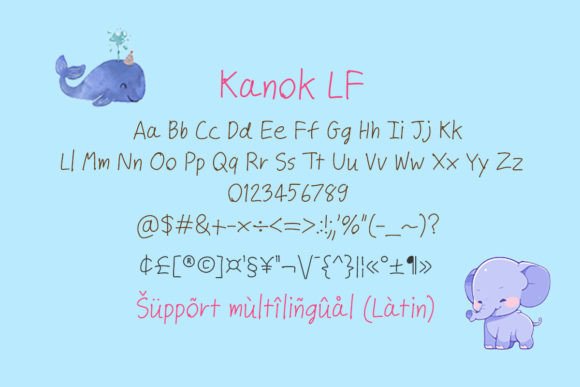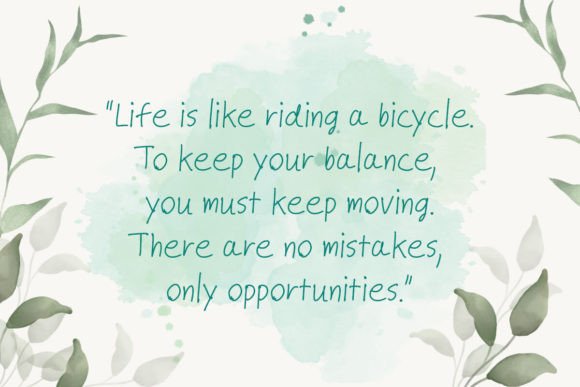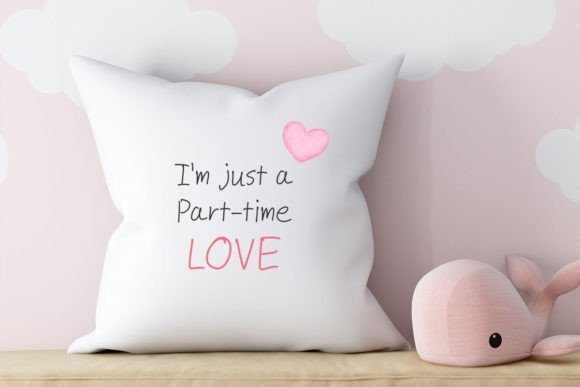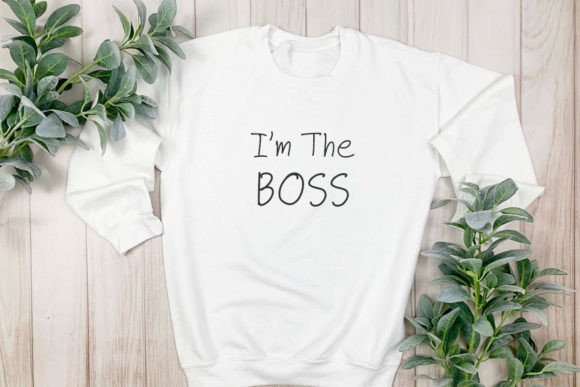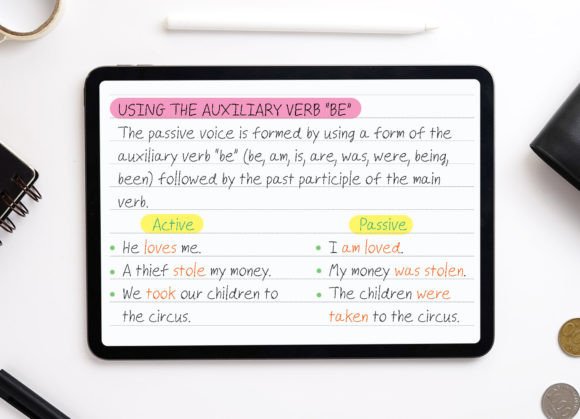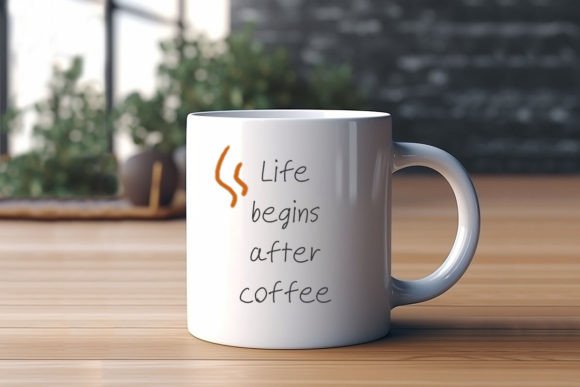
Introduction to Kanok Lf Font
Have you ever stumbled upon the perfect font that makes your design pop, and you just can’t wait to share it with the world? For designers, finding the right font can be a game-changer, and that’s exactly what we’re going to explore today – the charming Kanok Lf Font. This playful and quirky sans serif font style is perfect for adding a touch of whimsy to your creative projects.
Whether you’re working on a fun project, designing a diary or planner, or creating children’s themed designs, the Kanok Lf Font is an excellent choice. Its versatility and high quality make it an ideal resource for designers who want to add a personal touch to their work. And the best part? It’s available for free download, making it a valuable asset for any design project.
With its transparent background and clean lines, the Kanok Lf Font is perfect for logos, posters, blogs, and even wedding invitations. So, if you’re looking for a font that’s both fun and professional, look no further than the Kanok Lf Font.
Key Features of Kanok Lf Font
- Kanok Lf Font is a high-quality design resource ideal for creative projects, offering a unique and stylish touch.
- Kanok Lf Font features a transparent background, allowing for seamless integration with various design elements and backgrounds.
- Kanok Lf Font is designed at a high resolution (300 DPI), making it suitable for use in print and digital media.
- The font is available in a single weight, providing a clean and elegant look that is perfect for titles, headings, and other design elements.
- Kanok Lf Font is a versatile design resource that can be used in a variety of creative projects, from graphic design and typography to web design and digital art.
Honest Review: Kanok Lf Font
As a designer, I’m always on the lookout for high-quality design resources to enhance my creative projects. Recently, I stumbled upon the Kanok Lf Font, and I must say it’s been a delightful discovery.
Here are some aspects that work well:
- ✨ The font has a beautiful, elegant design that’s perfect for projects requiring a touch of sophistication.
- ✨ The transparent background makes it easy to integrate into various design elements.
- ⚠️ The font family is quite limited, with only a few styles to choose from.
- ⚠️ Some users may find the font size inconsistent across different operating systems.
Overall, the Kanok Lf Font is a solid addition to any designer’s toolkit. While it may have some limitations, its high-quality design and transparent background make it a valuable resource for creative projects.
Experiment with different font sizes, colors, and styles to create a unique look for your design. Use the Kanok Lf Font with a transparent background to achieve a clean and minimalist aesthetic.
The Kanok Lf Font is ideal for creative projects, such as logos, brochures, and social media graphics. Its high-quality design and transparent background make it perfect for use in digital and print media.